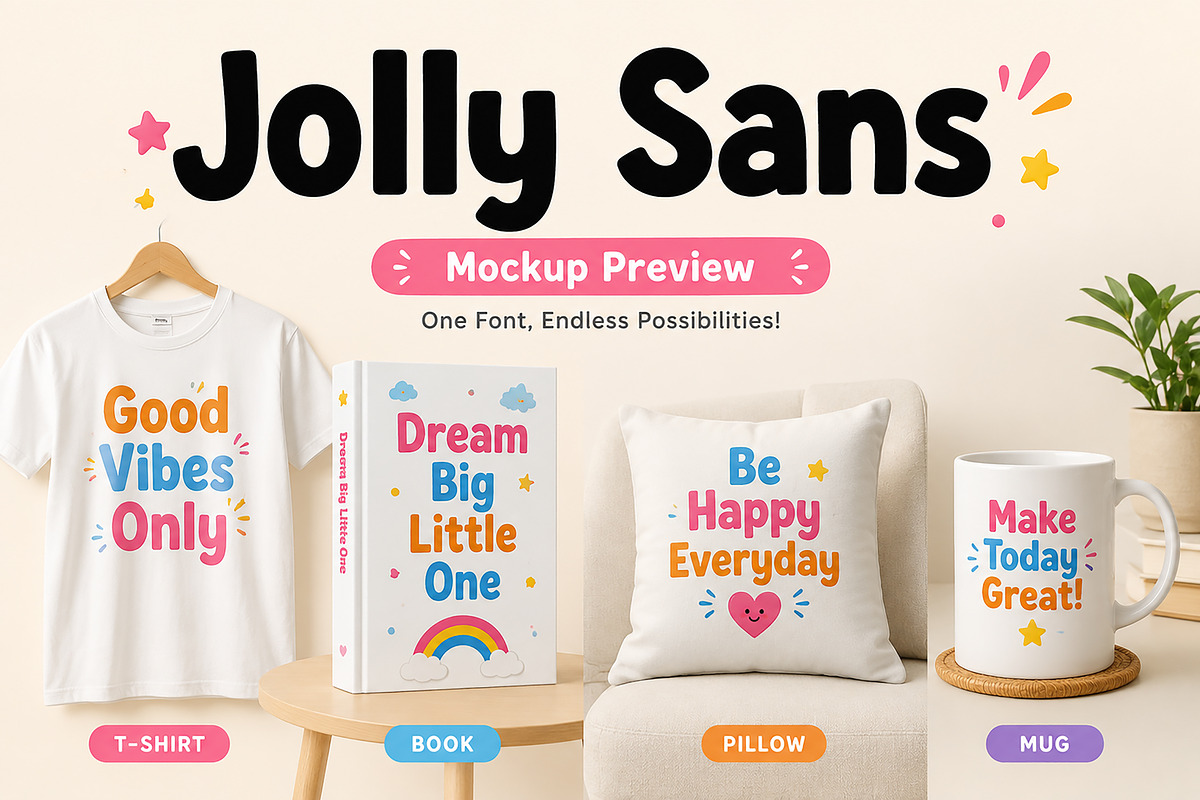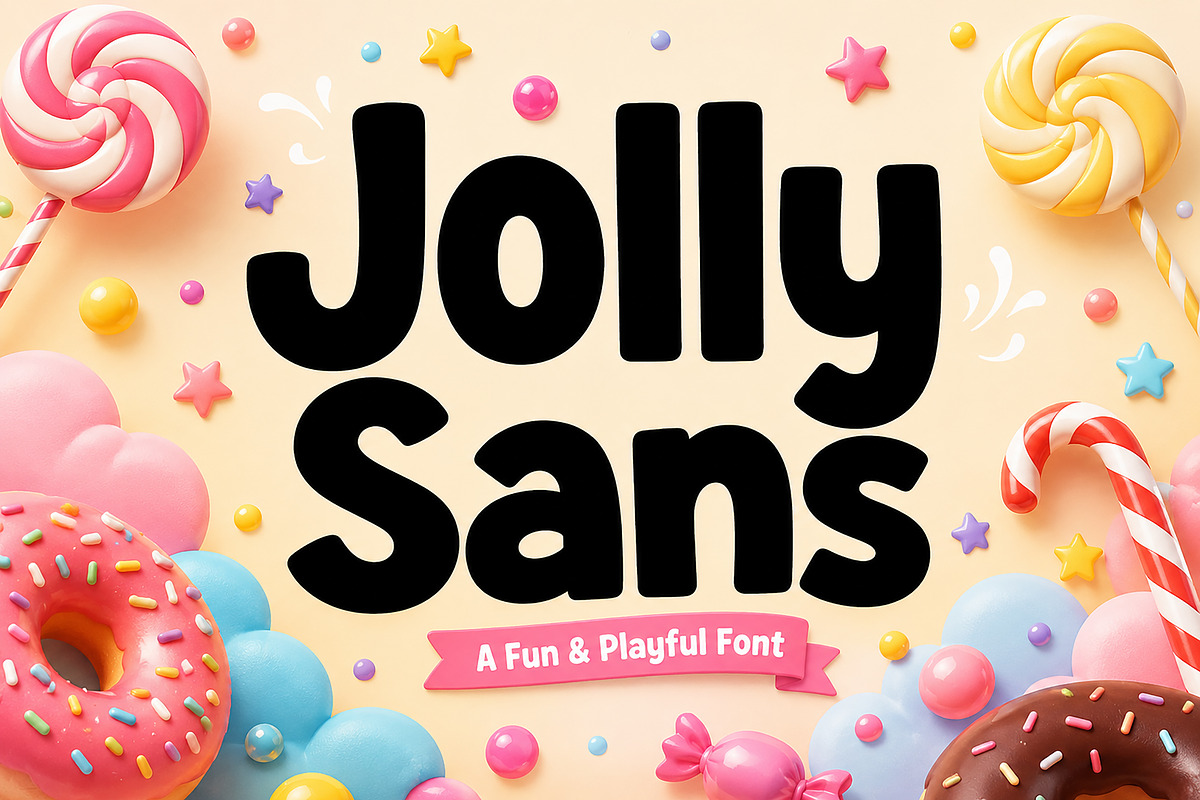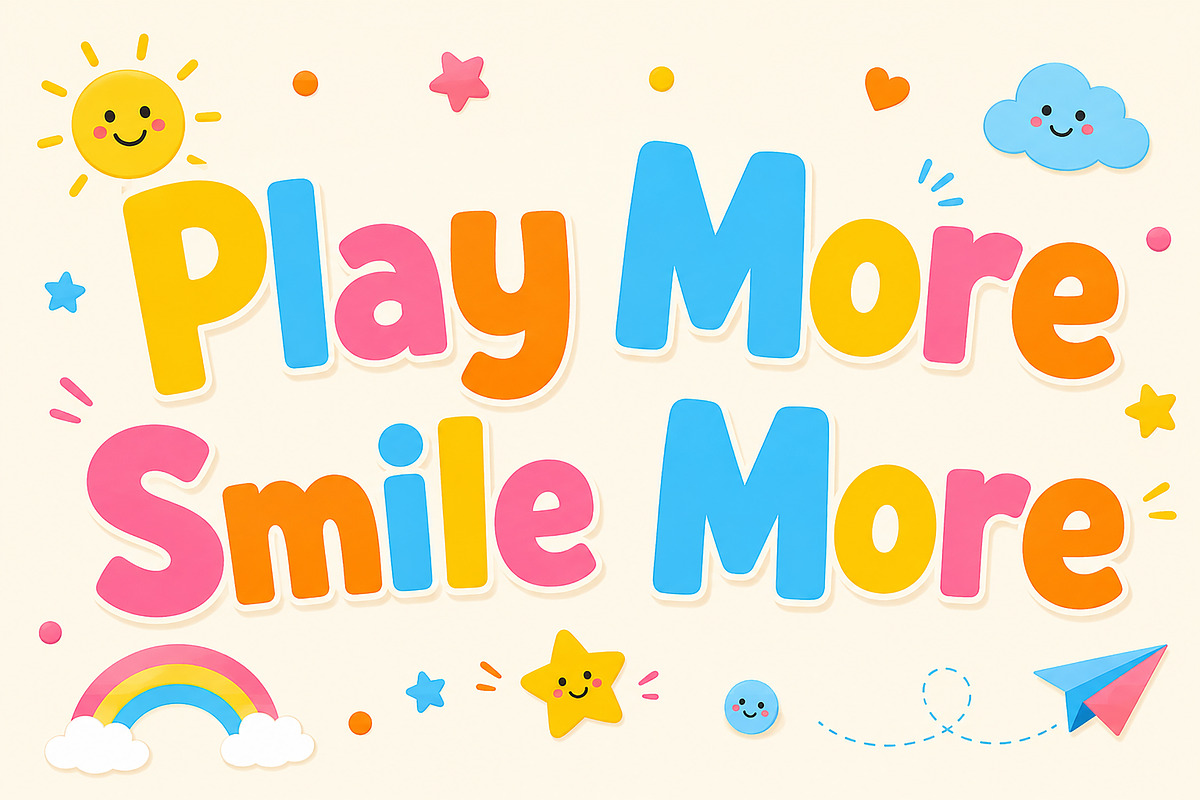
Jolly Sans
Jolly Sans – Fun Rounded Display Font
Jolly Sans is a playful rounded display font with a bold and friendly personality, perfect for kids’ designs, branding, social media graphics, and cheerful typography projects.
Jolly Sans is a cute and playful display font featuring bold rounded letterforms that create a warm, friendly, and joyful appearance. Designed with smooth curves and a bubbly personality, this font brings fun energy and charm to every creative project.
Perfect for designers who want approachable and eye-catching typography, Jolly Sans works beautifully for children’s products, playful branding, stickers, packaging, social media content, and colorful marketing designs. Its soft and chunky shapes make text feel welcoming, modern, and easy to read.
Whether you're creating fun logos, classroom materials, toy packaging, party invitations, or cheerful digital content, Jolly Sans adds happiness and personality to your typography.
This font is ideal for projects that need a bright, youthful, and energetic visual style.
Kids’ designs
Playful branding
Toy packaging
Stickers & labels
Party invitations
Classroom materials
Cute logos
T-shirt designs
Fun typography projects
Uppercase letters
Lowercase letters
Rounded bold style
Friendly and playful appearance
Smooth curves and soft edges
Modern display typography
Easy-to-read design